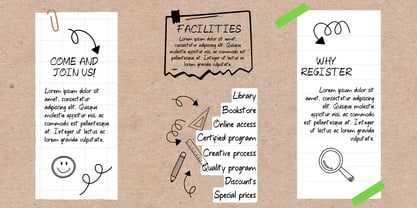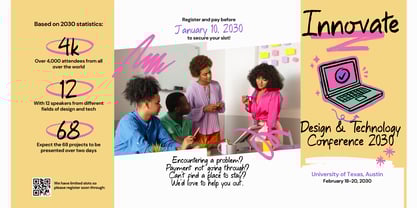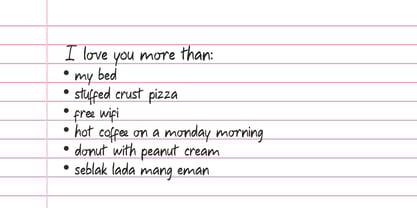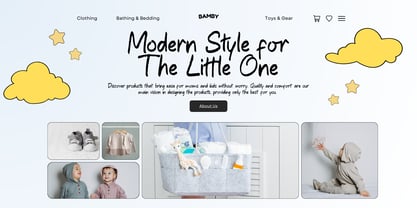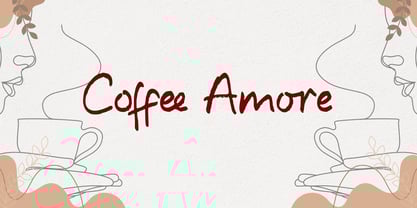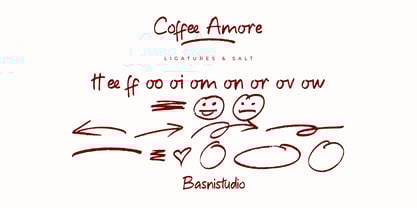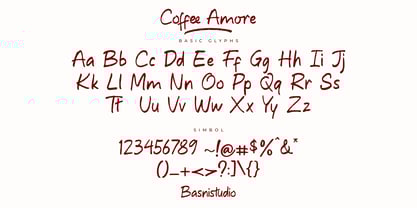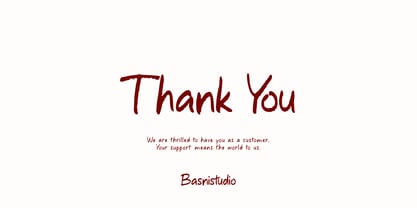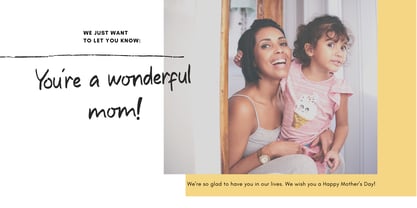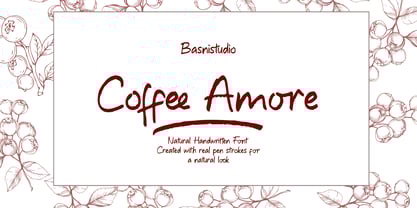
Coffee Amore
by Basnistudio
The Coffee Amore Font Family was designed by Bery Arisandi and published by Basnistudio. Coffee Amore contains 1 styles.
The Perfect Handwritting Touch for Your Designs Introducing CoffeeAmore a Handwritting Font Created with real pen strokes for a natural look and casual touch to everything from branding and social media to invitations and packaging. Natural & Casual – Perfect for tagline, quotes, greeting cards, and more Authentic Handwritten Feel – Created with real pen strokes for a natural look Easy to Use – Works seamlessly with all major design programs Whether you’re building a powerful brand identity or crafting a standout design, CoffeeAmore a Handwritting Font Created with real pen strokes for a natural look gives you the creative edge you need. What’s Included: Uppercase & lowercase letters Ligature & bonus vector Numbers & punctuation Multilingual Support ( Support for 90 languages ) If you have any questions please don’t hesitate to contact me. And check our Site Basnistudio Thank You Very Much
Hi introducing we are BasnistudioHere we design modern, unique and Amazing Font,perfect for branding, websites, design invitation, and editorial designs. Includes all upper and lower case letters, multilingual support, punctuation, binding and initial and final swash. everything can be easily accessed using software that supports OpenType.we hope our Amazing Font can make your Amazing project easier,